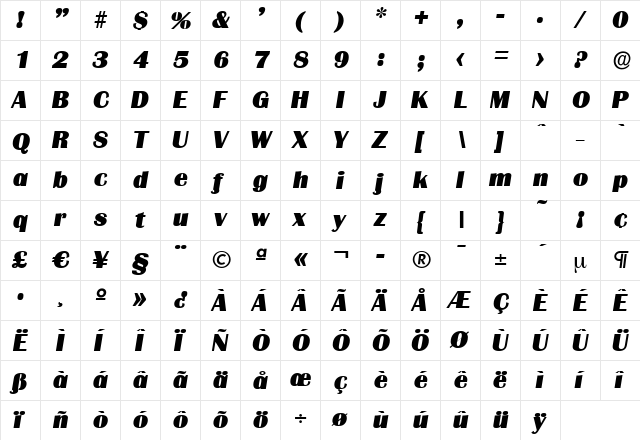
JesseBecker-Heavy Italic
Design Context for JesseBecker-Heavy Typeface
JesseBecker-Heavy offers clean, dependable letterforms without strong stylistic allegiance, making it a practical choice for designers who need flexibility. The slanted form adds forward momentum and visual energy.